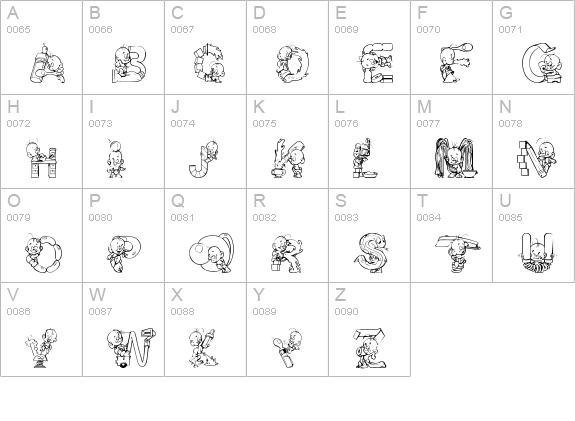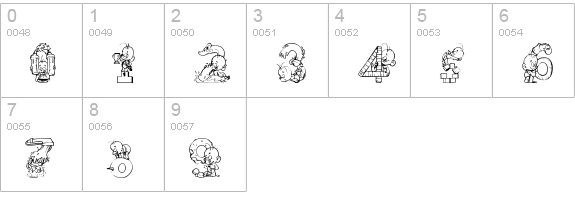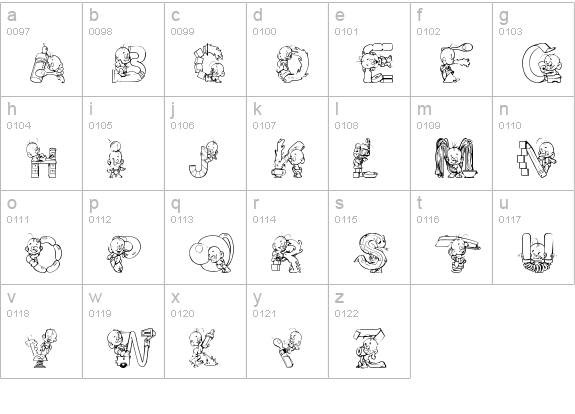
Baby! Font Details
Introducing Baby! font, the perfect blend of playfulness and charm. This delightful typeface is sure to bring a touch of sweetness to your designs. With its adorable curves and whimsical details, Baby! font captures the innocence and joy of childhood. Designed with care and attention to detail, Baby! font is versatile and can be used in a variety of projects. Whether you're creating invitations for a baby shower, designing a nursery print, or adding a pop of cuteness to your social media graphics, this font will make your text come alive with its playful personality. But what makes Baby! font even more appealing is that it is free! Yes, you read that right. This delightful font is freely available to download at FontsMarket.com. Now you can add a touch of sweetness to your designs without breaking the bank. So why wait? Get your hands on Baby! font today and let your creativity soar. Whether you're a professional designer or a creative enthusiast, this font is a must-have in your collection. Download it now from FontsMarket.com and let the cuteness begin!